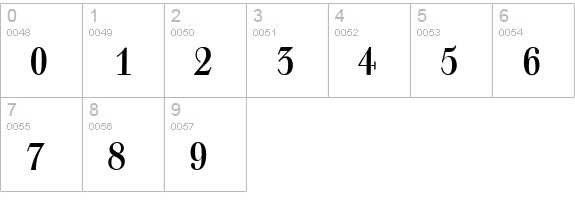
BaumWell Font Details
Introducing BaumWell, a captivating and versatile font that will elevate your designs to new heights. With its elegant yet modern style, BaumWell is the perfect choice for any project that requires an element of sophistication and flair. This font boasts a harmonious balance between sleek lines and subtle curves, creating a visually pleasing aesthetic that is sure to catch the eye. Each letter has been meticulously crafted to ensure clarity and legibility, even at smaller sizes, making it ideal for both print and digital applications. One of the most remarkable features of BaumWell is that it is available for free! Yes, you read that right. This stunning font can be freely downloaded at FontsMarket.com, allowing you to enhance your designs without breaking the bank. Whether you are a professional designer or a DIY enthusiast, BaumWell is the perfect addition to your creative toolkit. Not only does BaumWell offer exceptional style and accessibility, but it also provides a wide range of language support, ensuring that your message can be effectively communicated to audiences around the world. The extensive character set includes various punctuation marks, symbols, and accents, allowing you to effortlessly tailor your designs to suit any language or cultural context. From elegant branding projects to eye-catching social media graphics, BaumWell is a font that will never disappoint. Its timeless appeal and versatility make it suitable for a multitude of design applications, from logos and headlines to invitations and packaging. So, why wait? Download BaumWell today and unlock a world of creative possibilities. With its captivating charm and the fact that it is freely available at FontsMarket.com, this font is an absolute must-have for any designer who values both style and affordability. Elevate your designs with BaumWell and let your creativity soar.